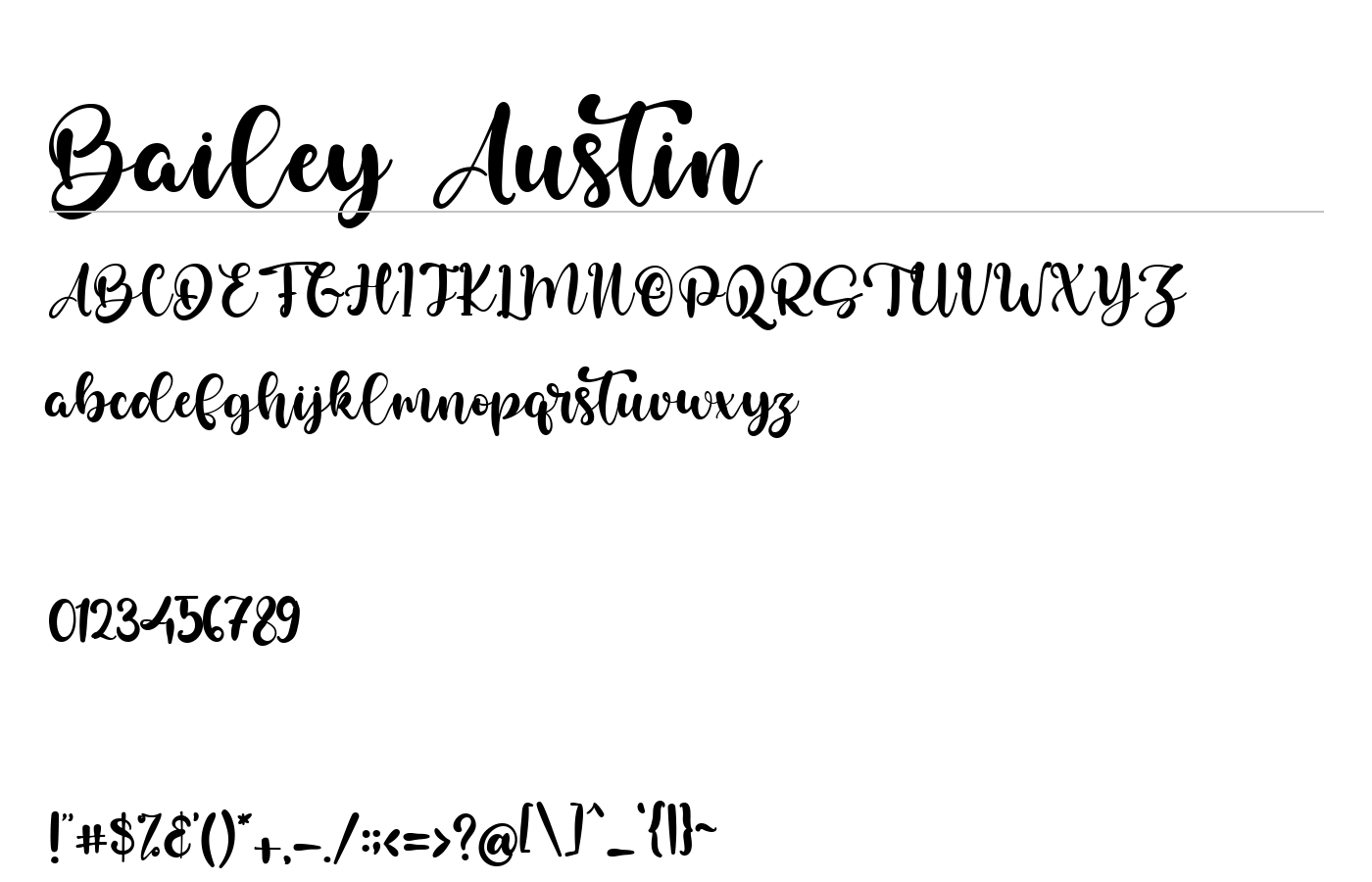
Bailey Austin is a charming script font with a playful and elegant flow, featuring smooth, rounded strokes and moderate contrast. It combines flowing uppercase letters with a bold, brush-like lowercase that gives it a hand-lettered feel, making it perfect for invitations, branding, and creative projects seeking a warm and inviting touch. This font’s lively personality works well in headlines and logos where a stylish yet approachable look is desired.
Bailey Austin Font
About Bailey Austin Font
| Font family | Bailey Austin Font |
| Designer | Staircase Studio |